Chalkboard fonts are a classic font type that evokes ideas of school days long gone and quaint cafe menu boards. But not all chalkboard fonts are alike. The fonts below each communicate something different; some may pair better with other fonts in your design.
DK Crayon Crumble | Download
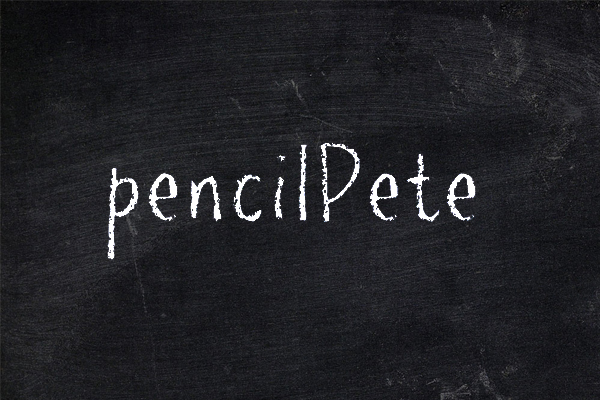
PencilPete | Download
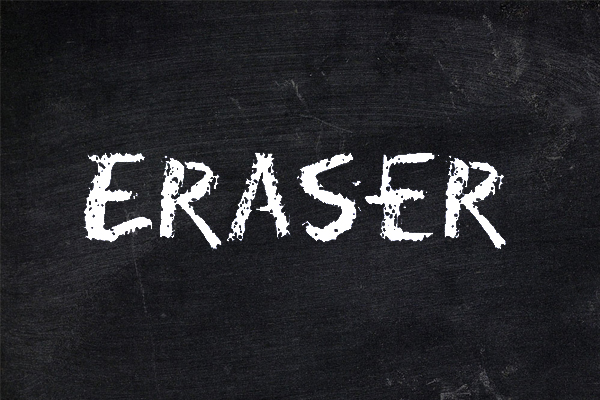
ERASER | Download
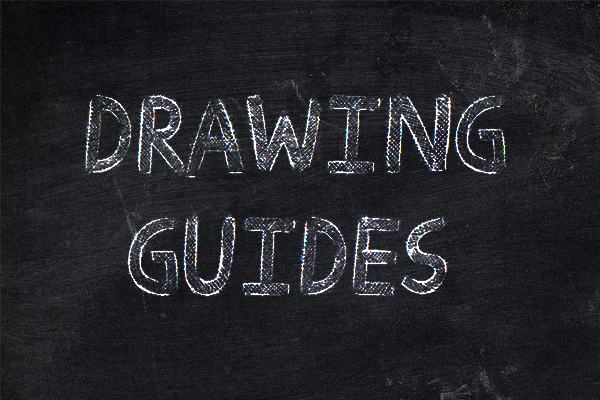
Drawing Guides | Download
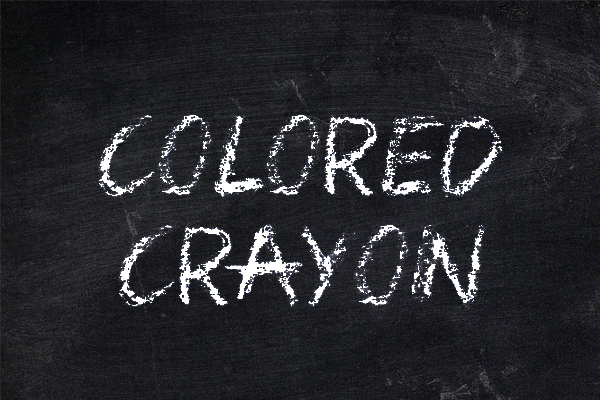
Colored Crayon | Download
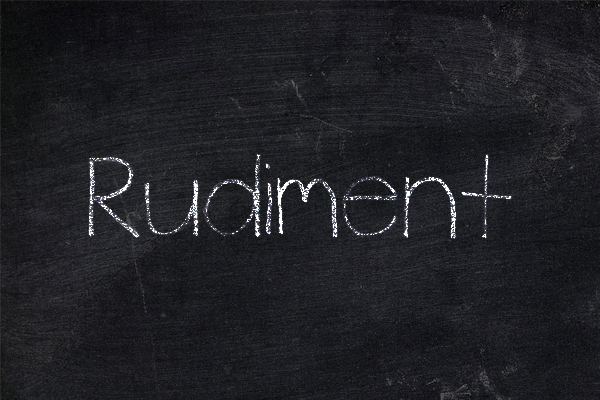
Rudiment | Download
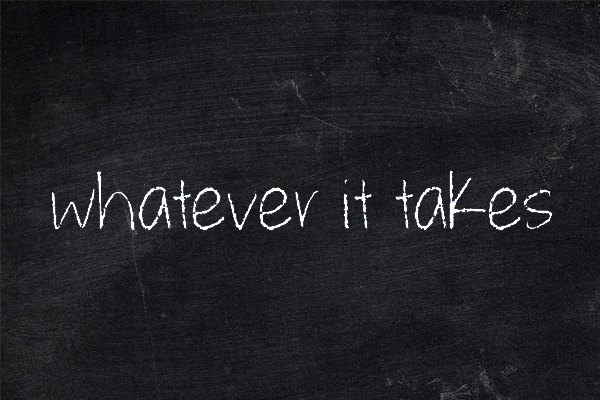
Whatever it takes | Download
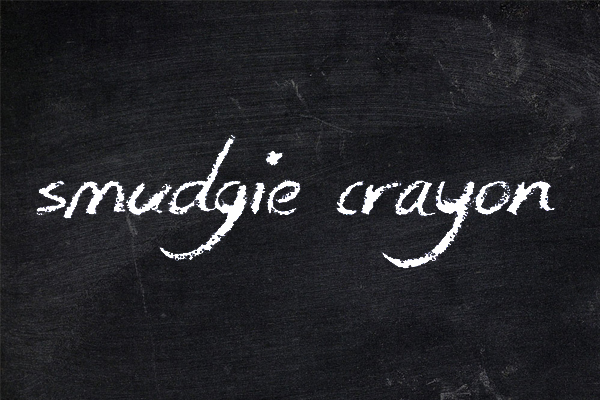
Smudgie Crayon | Download
Chalkline Outline | Download
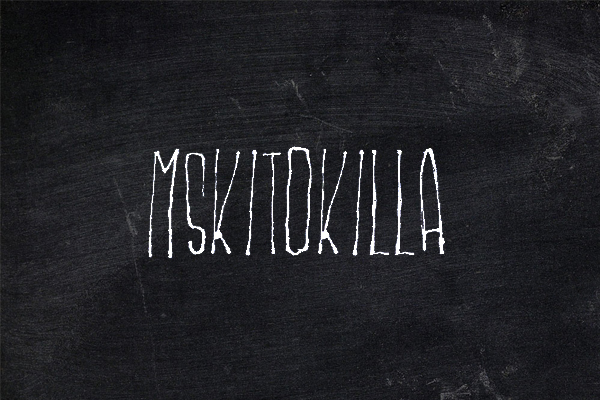
Mskitokilla | Download
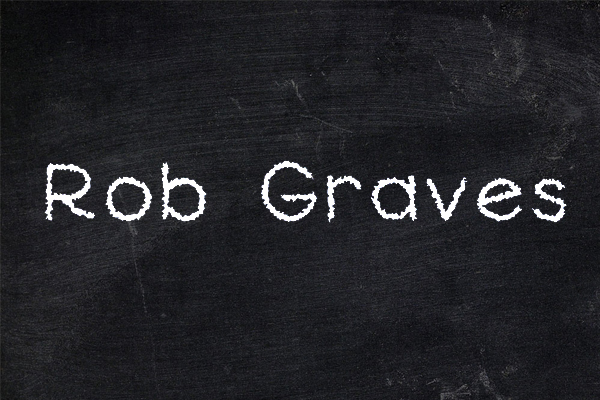
Rob Graves | Download
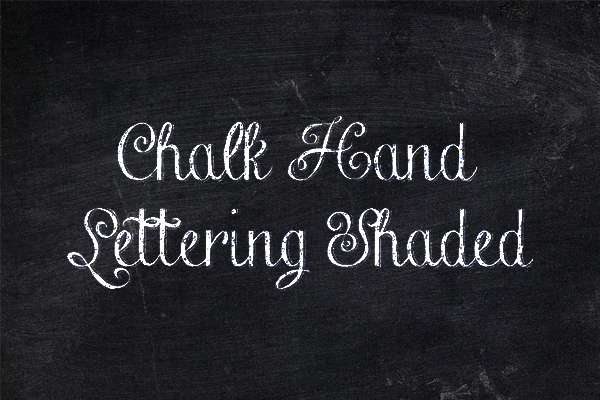
Chalk Hand Lettering Shaded | Download
KG Ten Thousand Reasons | Download
Chalkboard | Download
Clouds of Despair | Download
Urban Sketch | Download
Rechtman| Download
Return To Sender | Download
Grutch | Download
KG Second Chances| Download
FFF TUSJ | Download